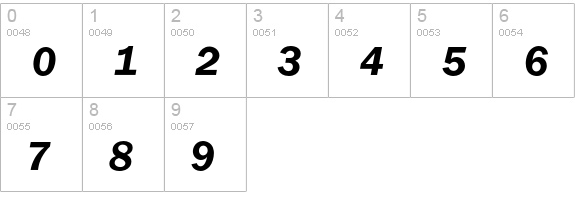
Franklin Gothic* Demi Italic Font Details
Franklin Gothic* Demi Italic is a sub-bold, structured, italic variant in the Franklin typeface family \xE2\x80\x94 well suited to sub-headlines and emphasised passages.
Franklin Gothic Demi Italic is a bold and stylish typeface that adds a touch of sophistication to any design. Its slanted letterforms exude a sense of modernity and professionalism, making it perfect for headlines, titles, and other prominent text. The italicized version of Franklin Gothic Demi brings a dynamic flair to your projects, creating a unique visual impact. What's even better is that this eye-catching font is available for free download at FontsMarket.com. Now you can effortlessly elevate your designs with the timeless elegance of Franklin Gothic Demi Italic without breaking the bank. Don't miss out on this opportunity to enhance your typography game with this versatile and striking typeface.